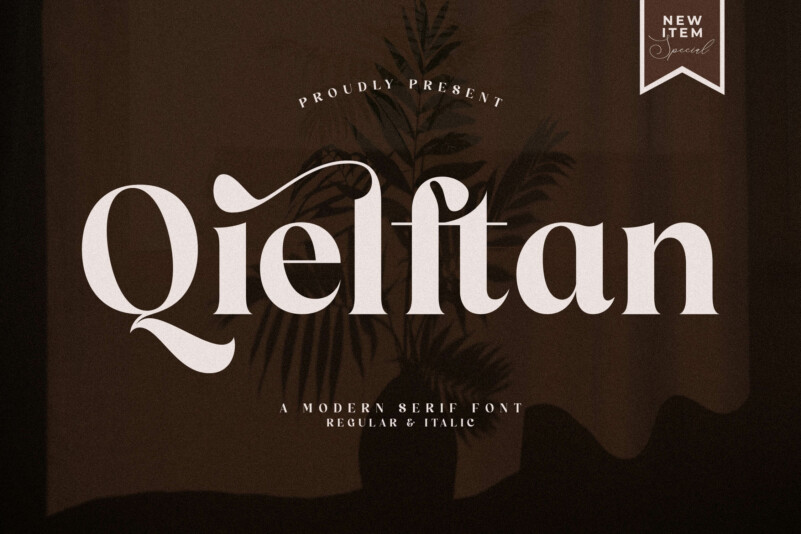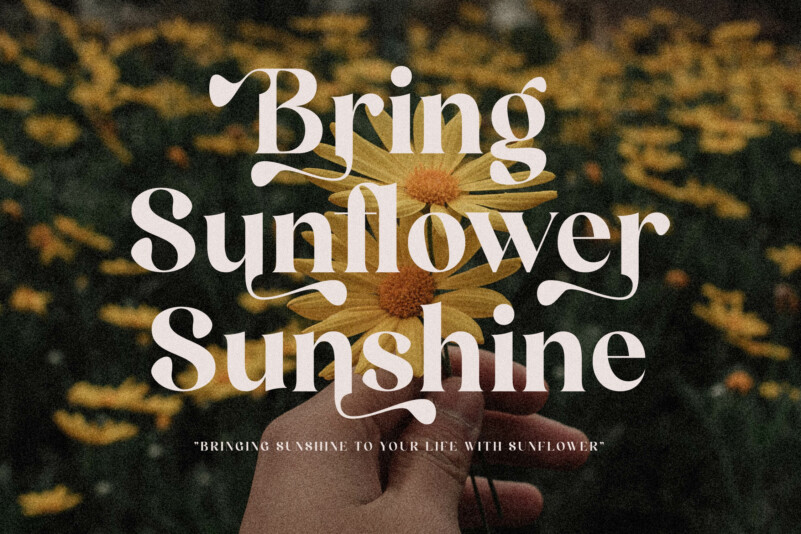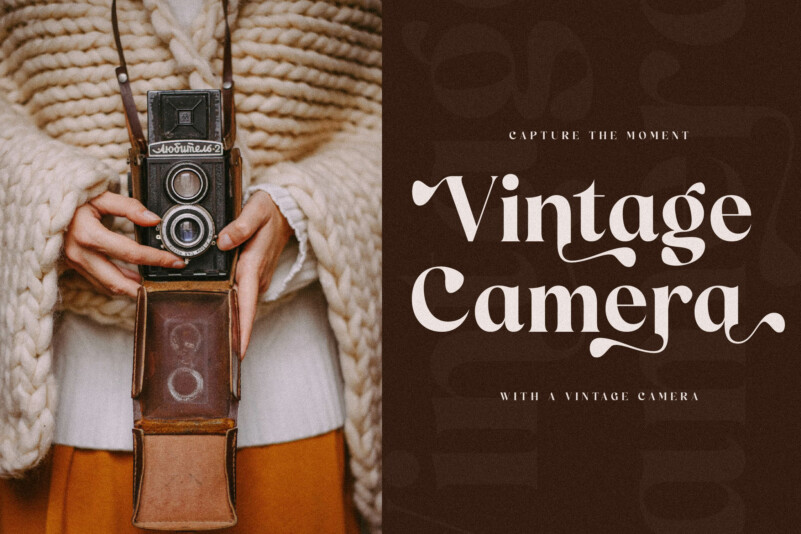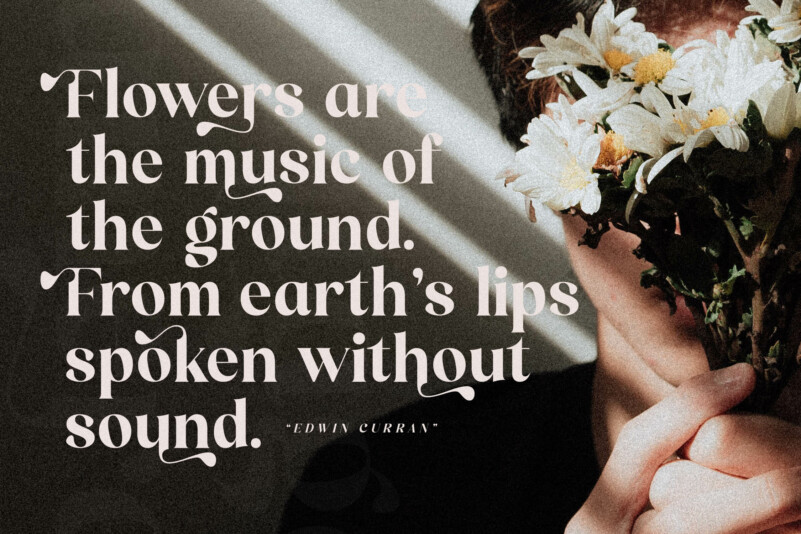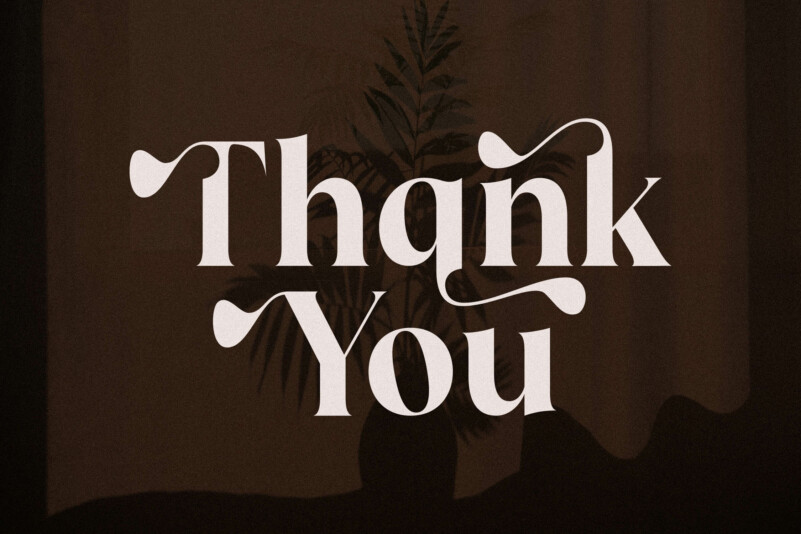
Qielftan Font
Qielftan Font is a serif modern and classic typeface that has own unique style & modern look. This typeface is perfect for an elegant & luxury logo, book or movie title design, fashion brand, magazine, clothes, lettering, quotes, and so much more